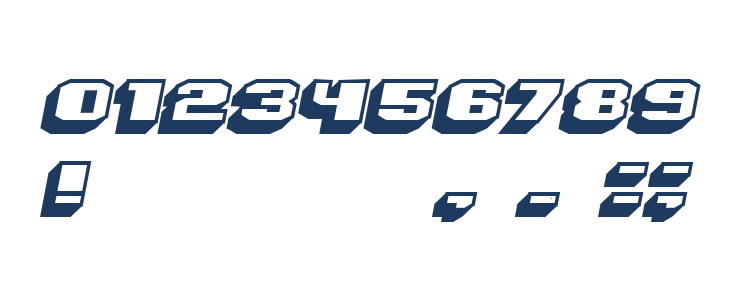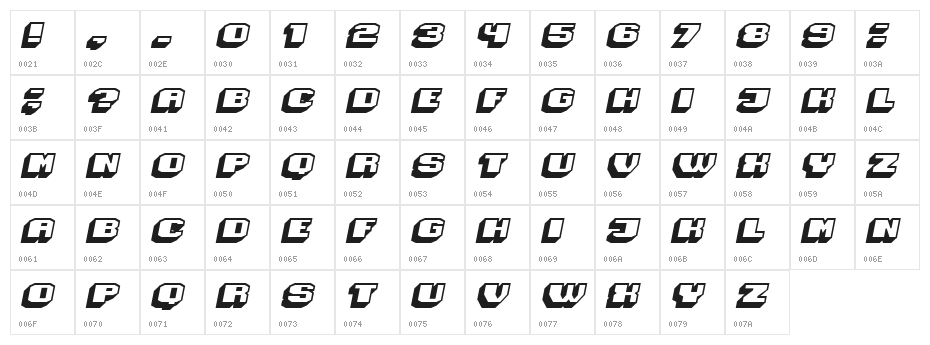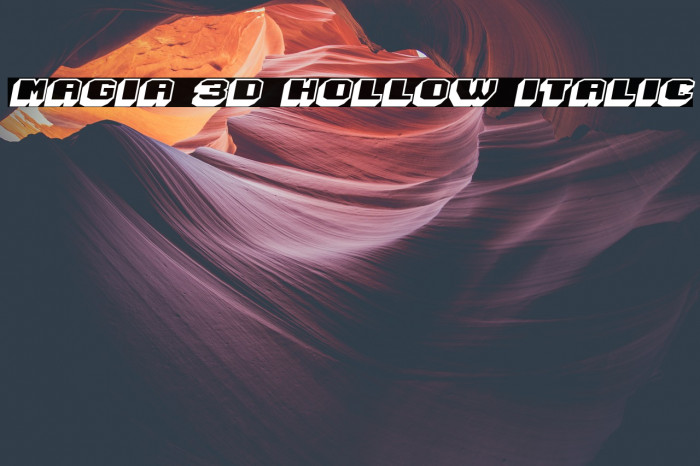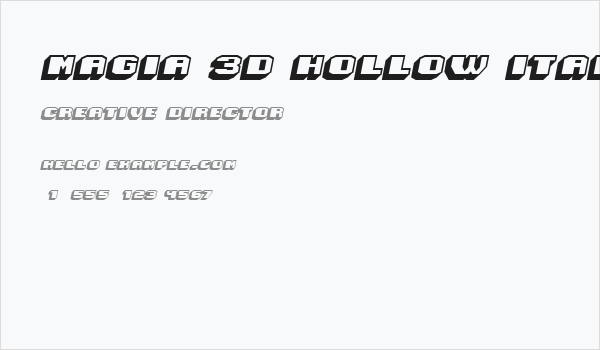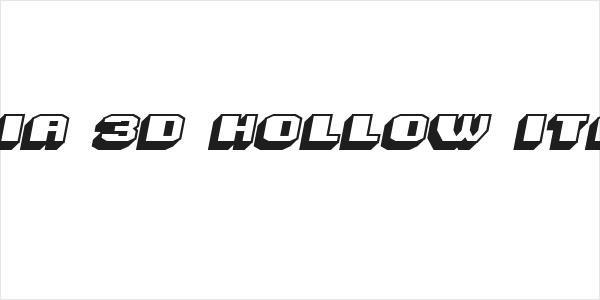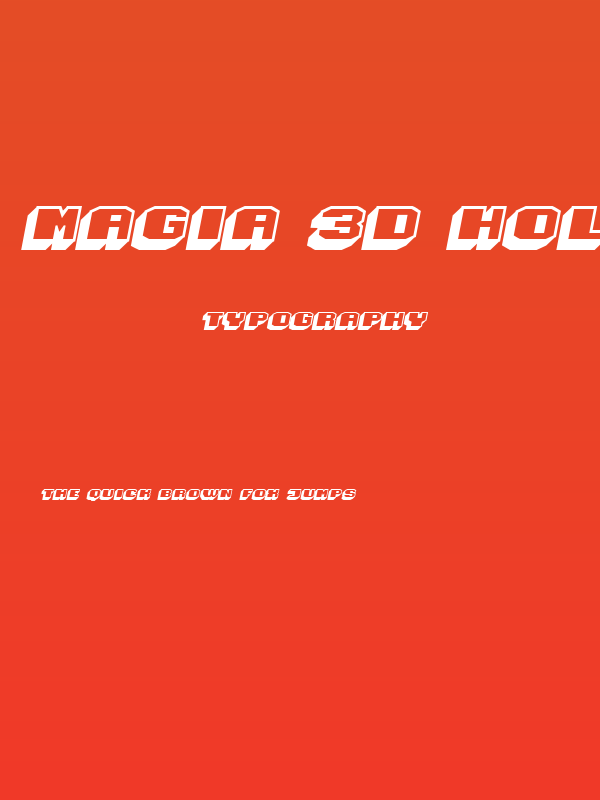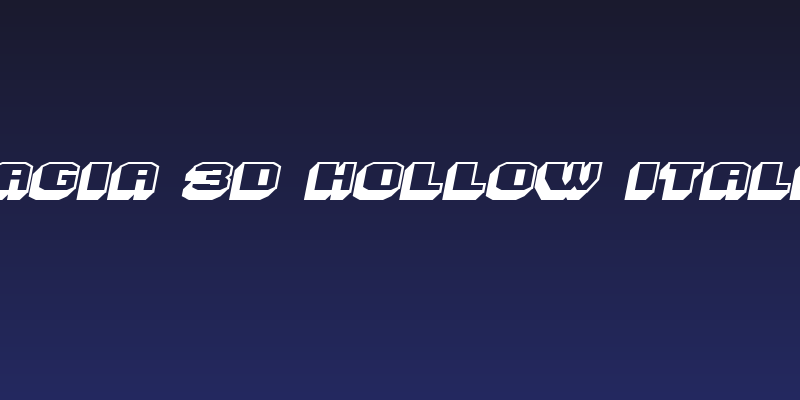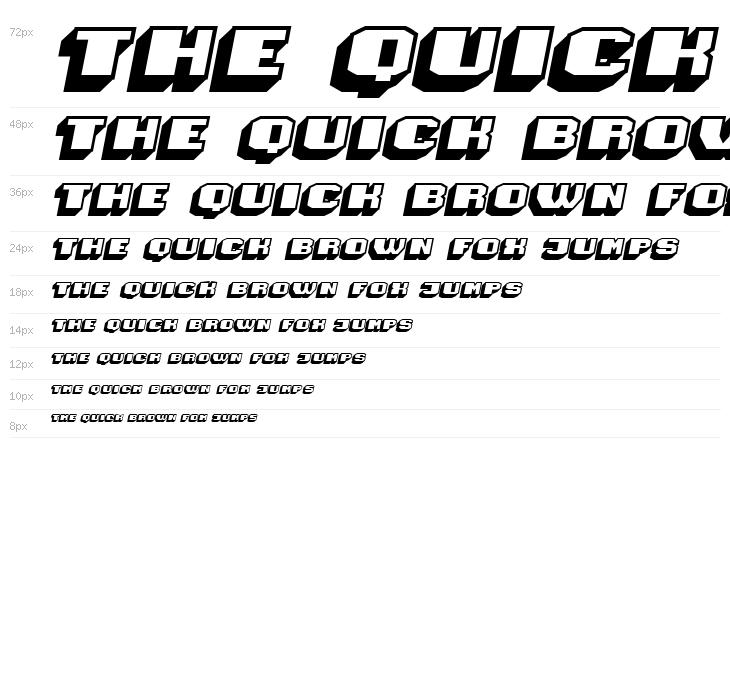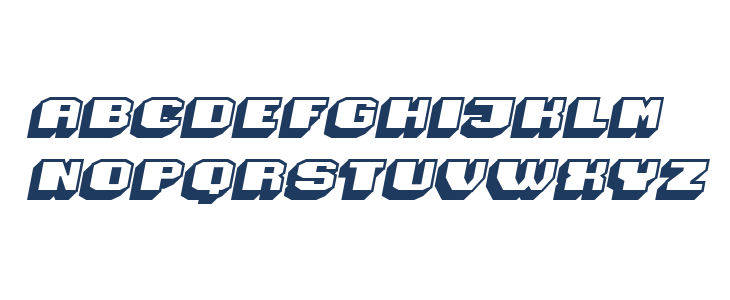
Magia 3D Hollow Italic Font
Magia 3D Hollow Italic Description
This font features a bold, three-dimensional appearance with a hollow center, giving it a striking and dynamic look. The italicized slant adds a sense of motion and energy, making it ideal for attention-grabbing designs. The characters are well-defined with sharp edges and a consistent shadow effect that enhances the 3D illusion. This style is particularly effective for creating a sense of depth and perspective, making it suitable for modern and futuristic themes. The font maintains a uniform width across all characters, ensuring readability while retaining its decorative appeal.
| Proposed Projects | Ideal for posters, video game titles, logos, and any project requiring a bold, futuristic look. |